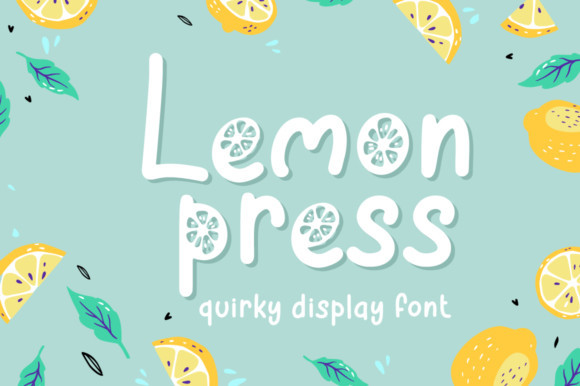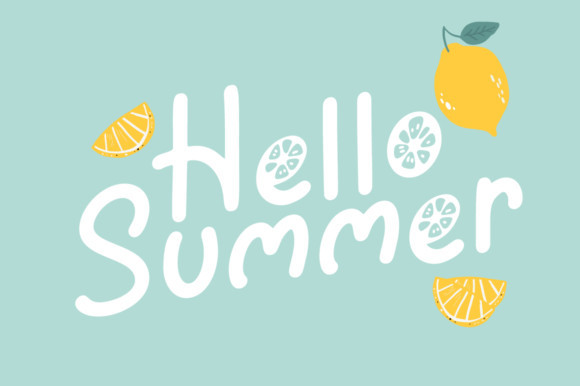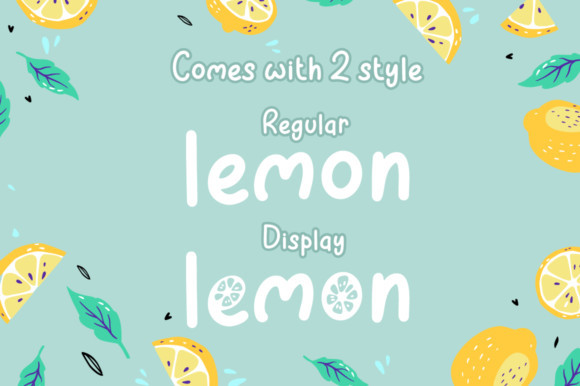
Lemon Press Font
Lemon Press is a summery and colorful display font. Its friendly feel makes this font incredibly versatile, fitting a wide range of contexts. Add it to your creative ideas and notice how it makes them stand out!